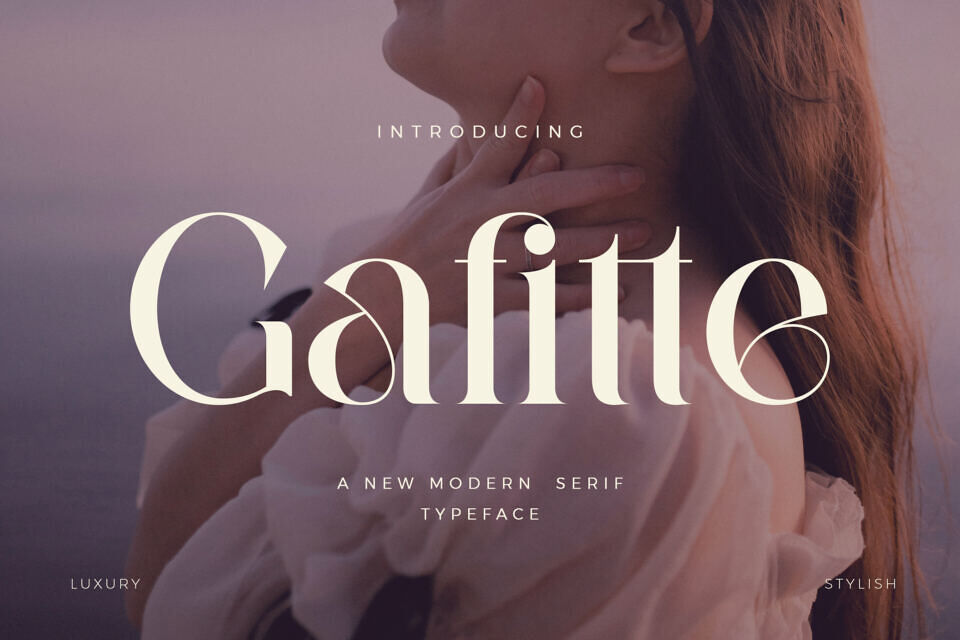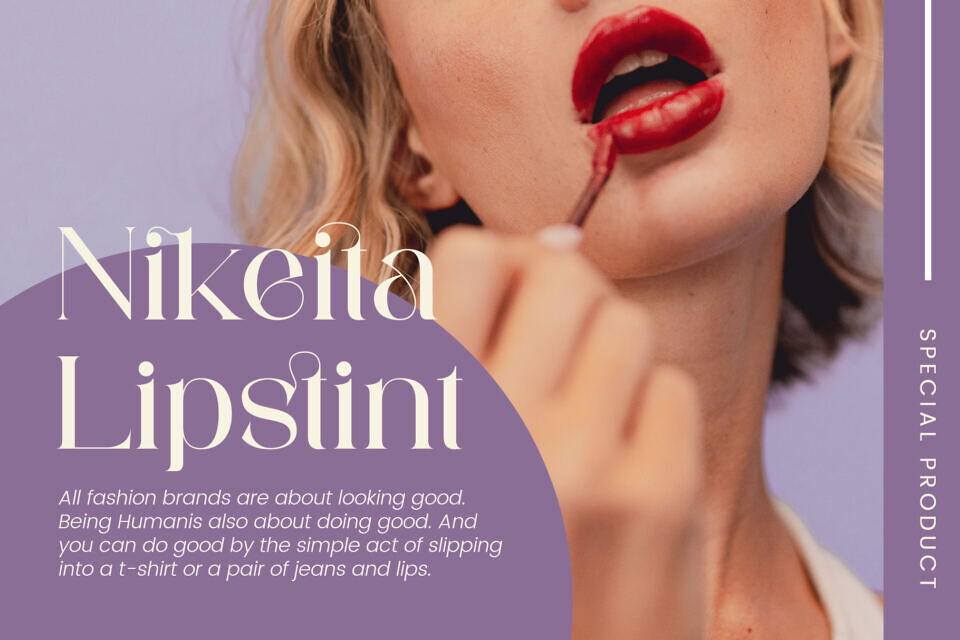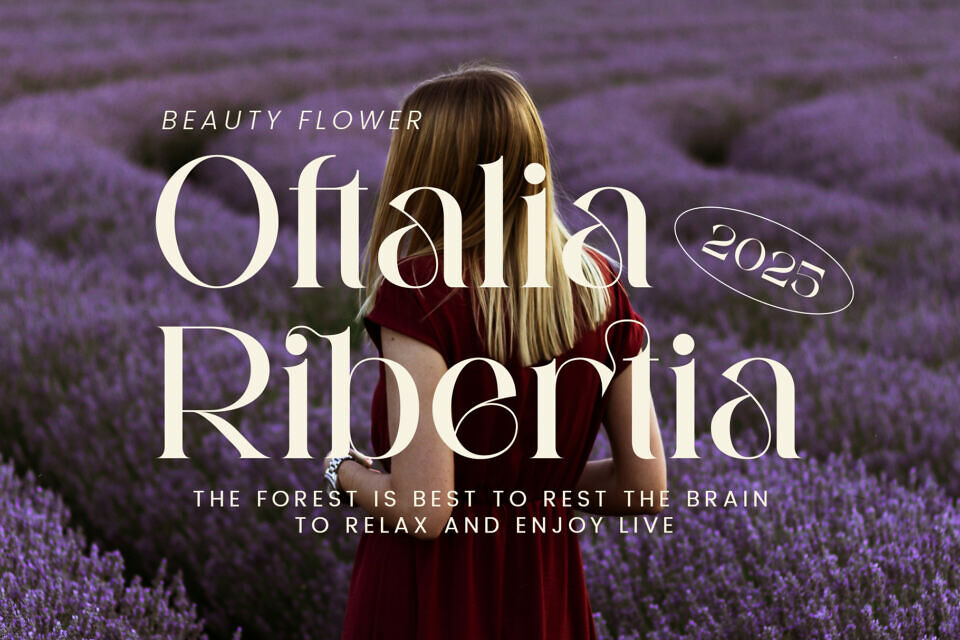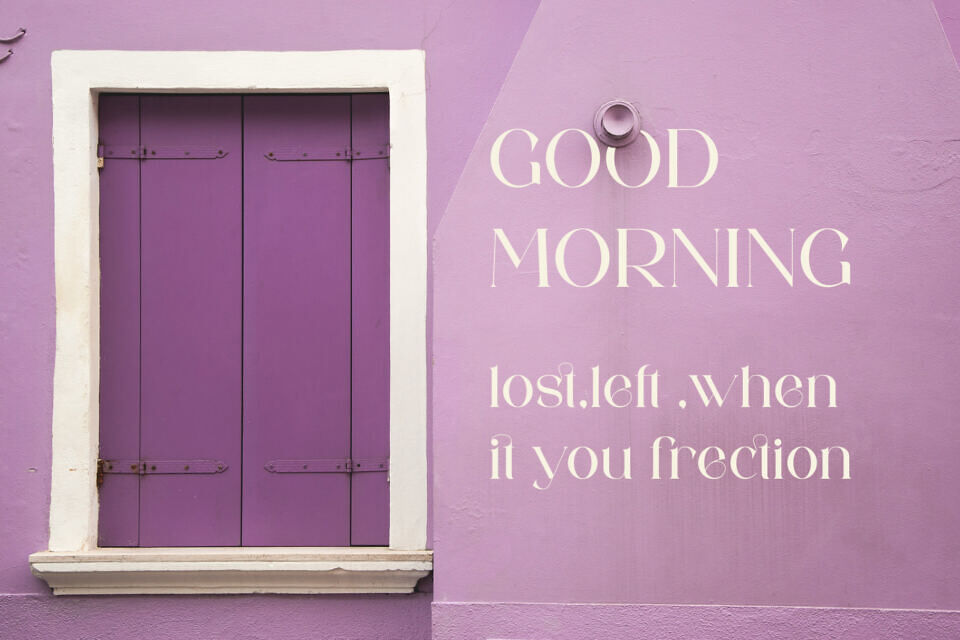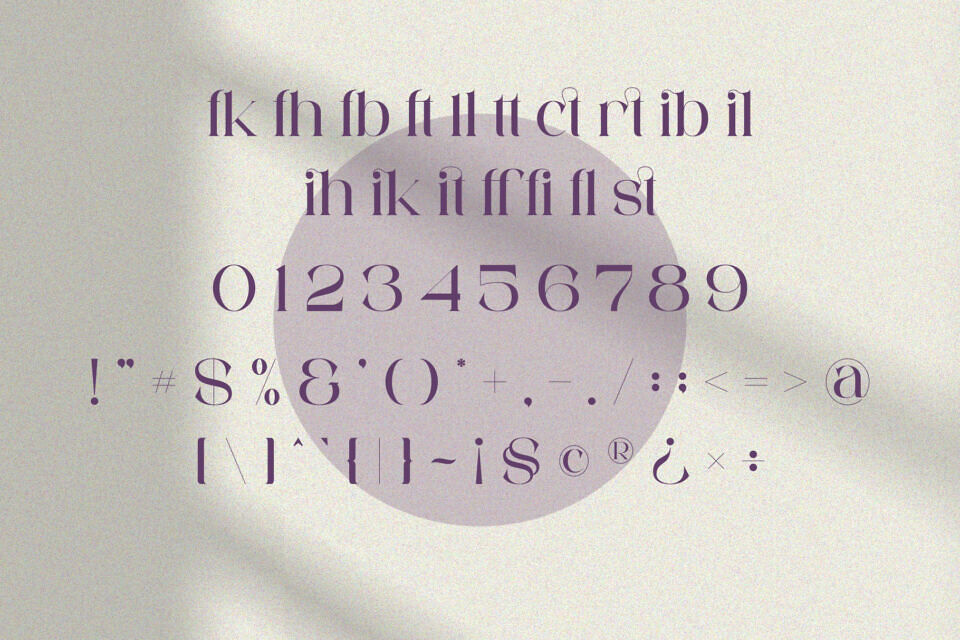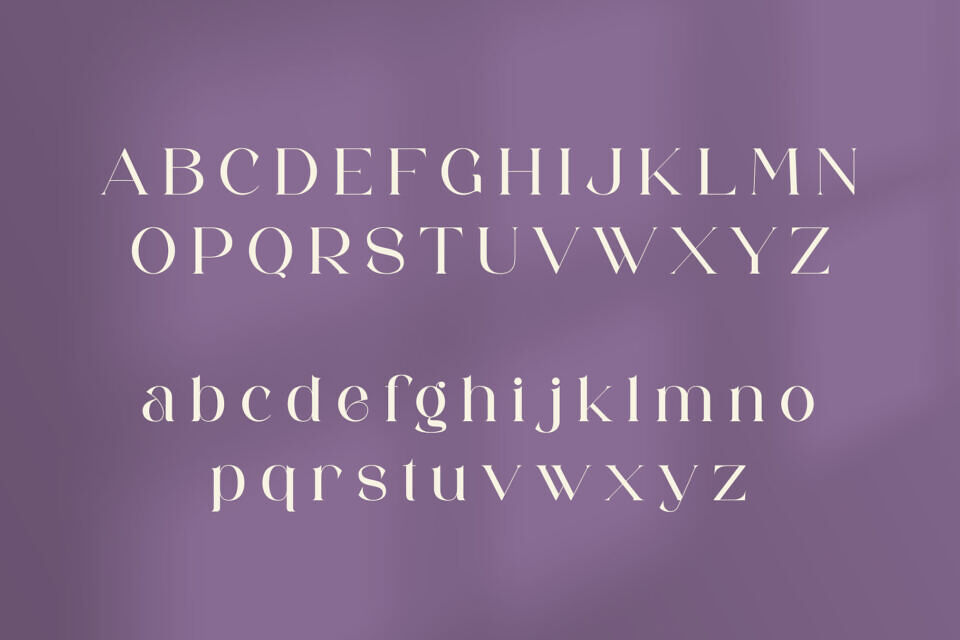
Gafitte Font
Gafitte is an elegant serif typeface with a stylish flair, drawing inspiration from minimalist design. Its ligature style makes it perfect for creating visually appealing templates, brochures, videos, and advertisements, as well as logos and branding materials.